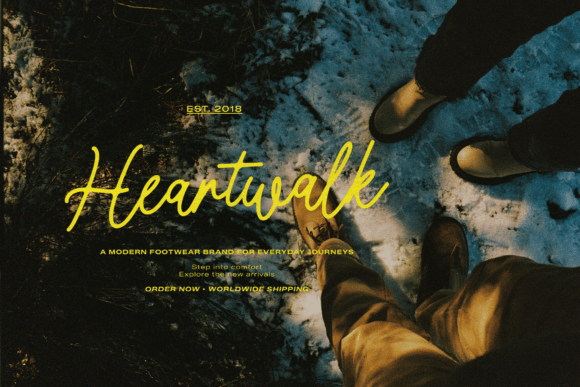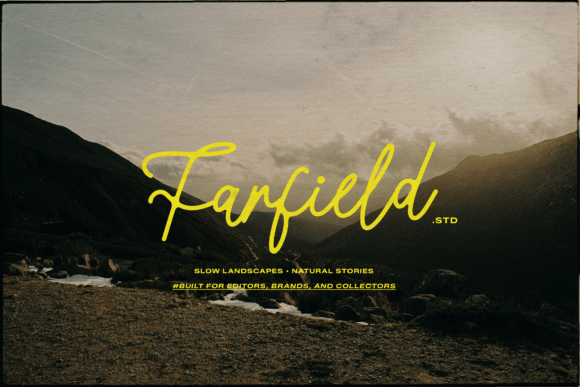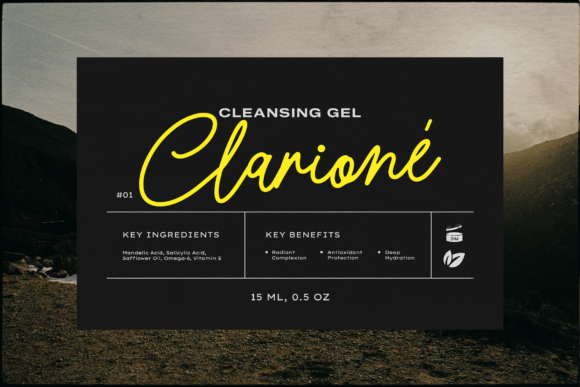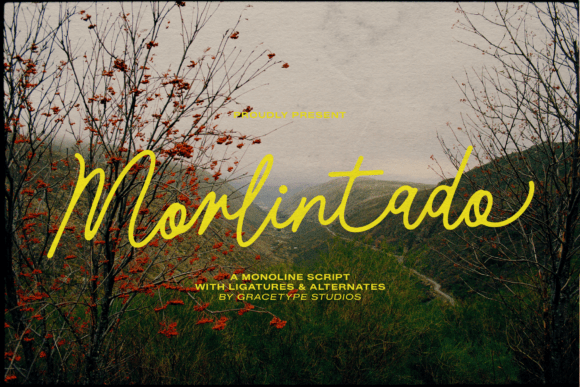
Introduction to Morlintado Font
Invoke the feeling of a crisp autumn morning with Morlintado font, a stunning monoline script that flows with natural grace.
This Morlintado typeface features elongated swashes and elegant ligatures that mimic a continuous pen stroke, creating a sense of effortless movement and sophistication It is an ideal choice for luxury branding, wedding stationery, and photography watermarks that require a personal, high-end touch.